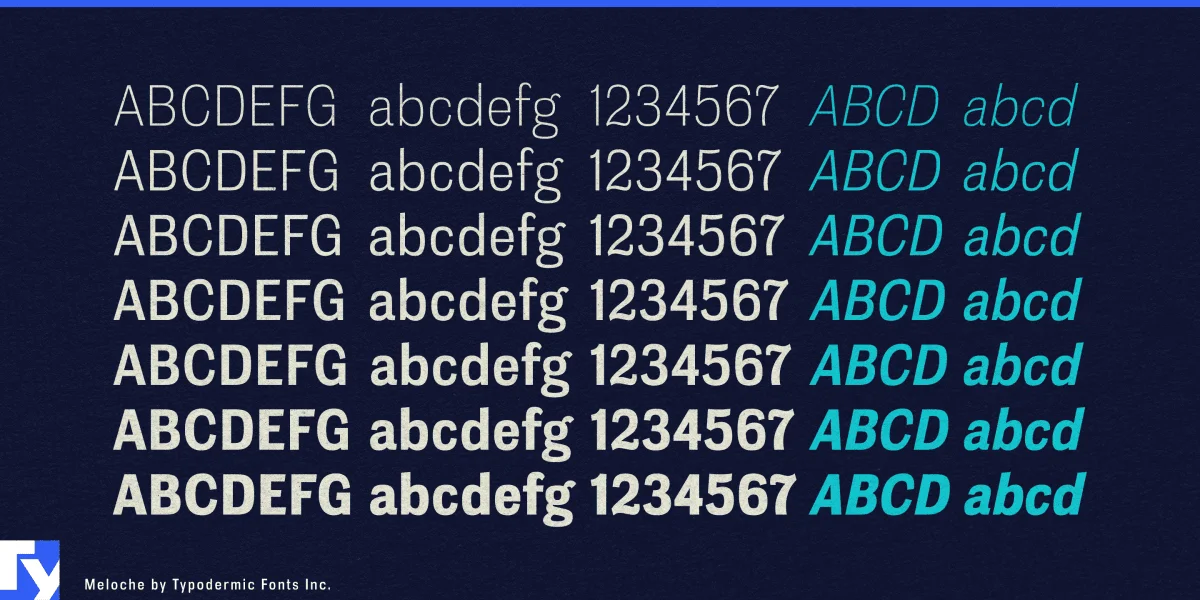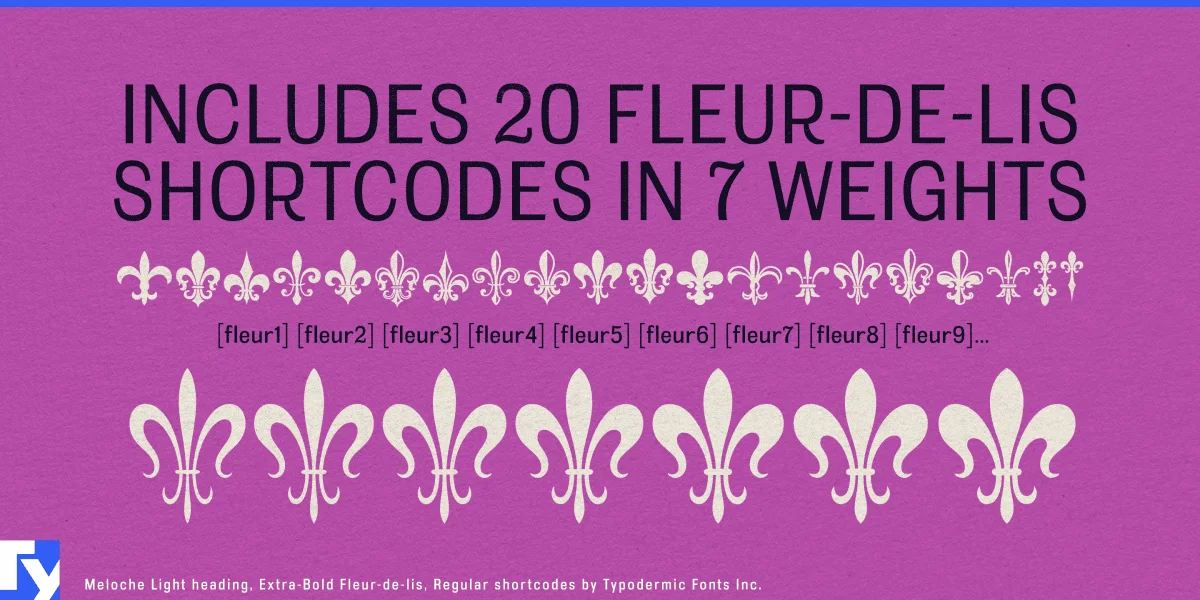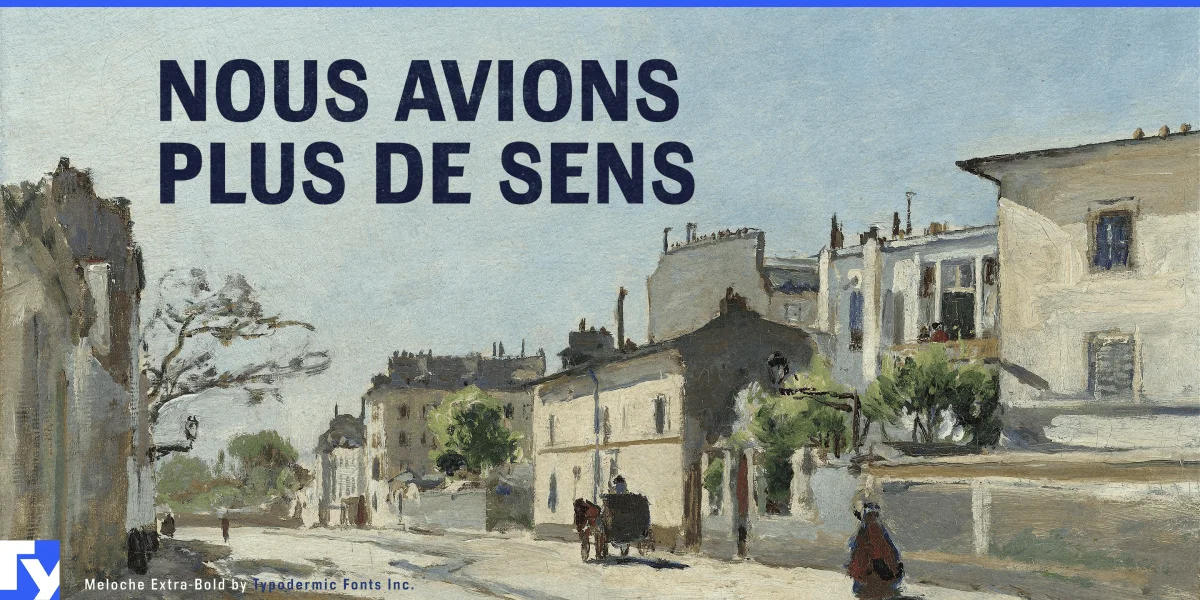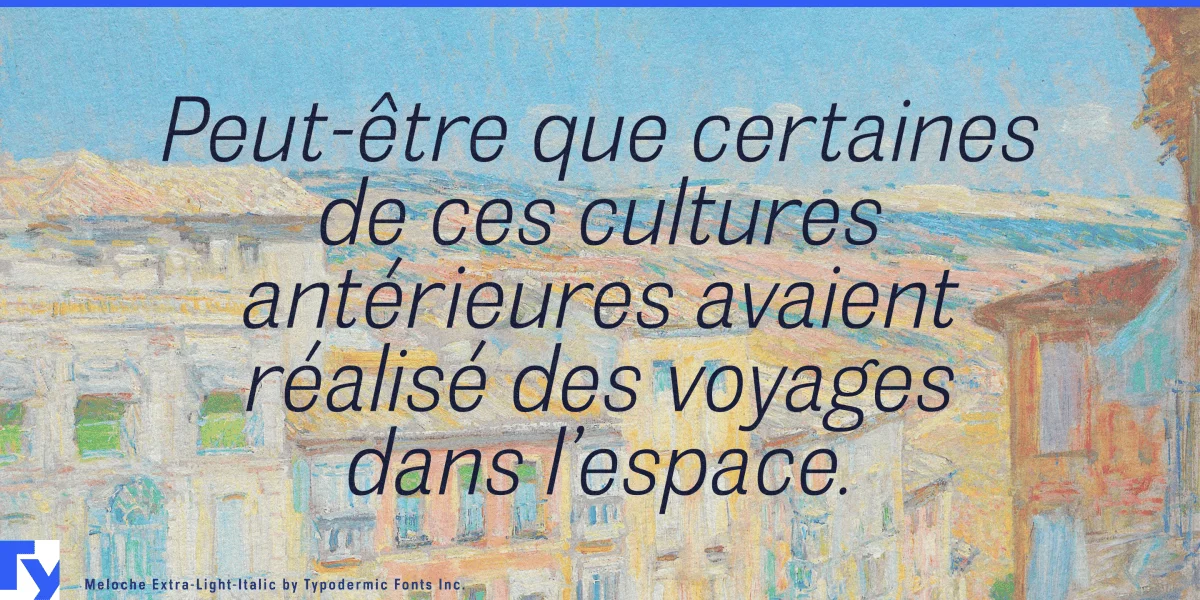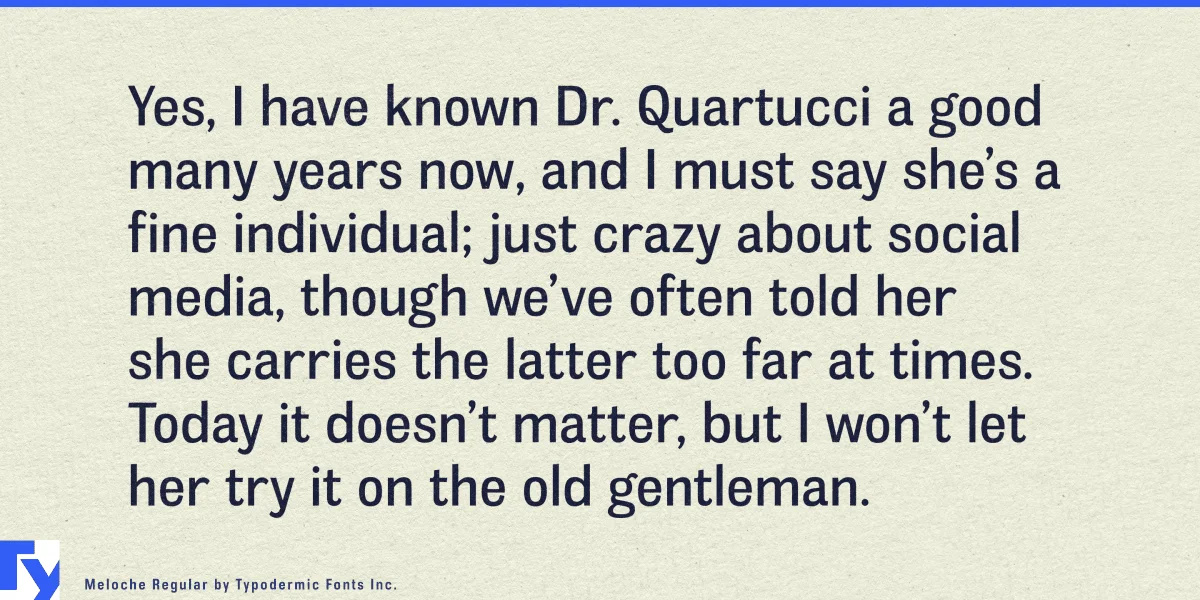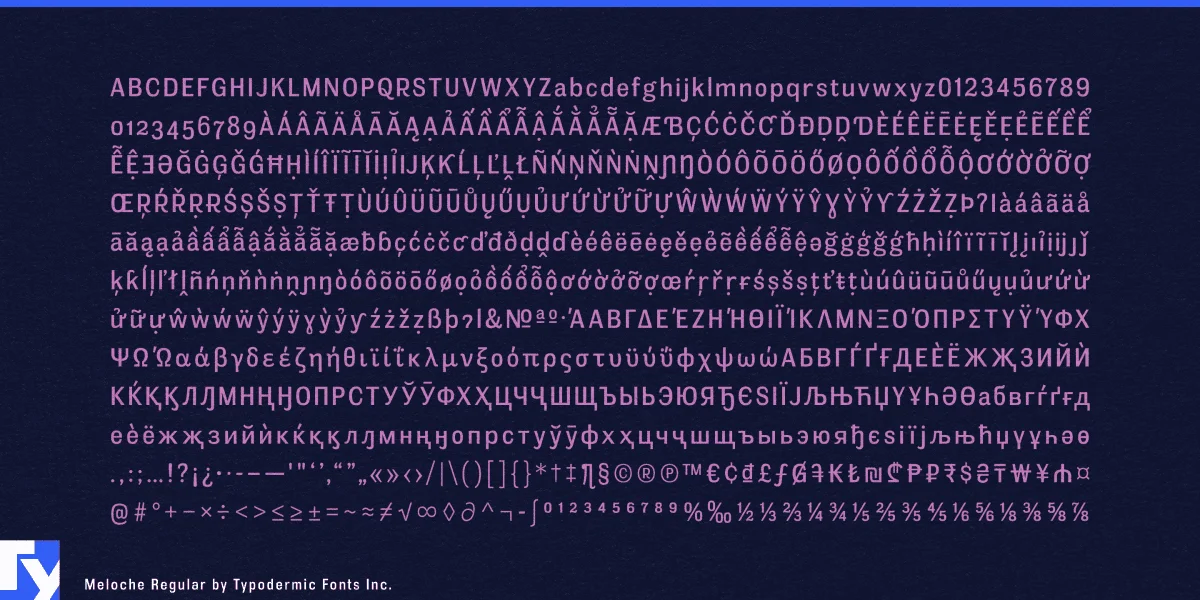
Step into the romantic streets of 19th-century Paris with Meloche, a grotesque sans-serif typeface that breathes life into the charming aesthetic of hand-painted French signage. This exquisite typeface doesn’t merely emulate history—it resurrects it, offering designers a portal to an era of unparalleled elegance and craftsmanship.
Meloche’s versatility shines through its seven meticulously crafted weights and obliques, each a testament to the typeface’s adaptability. From delicate headings to robust body text, Meloche rises to every typographic challenge. Its OpenType features unveil a treasure trove of typographic delights: numeric ordinals, fractions, and old-style numerals that dance gracefully alongside a refined, simple Q. But the pièce de résistance? Twenty weight-matched fleur-de-lis symbols, accessible via intuitive shortcodes, allowing you to crown your designs with the regal emblem of French heraldry. Imagine your message adorned with the subtle grace of bygone Parisian streets—each letter a brushstroke, each word a whisper of history. Meloche doesn’t just communicate; it transports. It’s the ideal choice for projects that demand a touch of nostalgic sophistication, from artisanal product packaging to historical exhibitions, from boutique branding to literary works evoking the romance of La Belle Époque.
This typeface’s linguistic prowess is as impressive as its aesthetic appeal. Meloche eloquently expresses itself across a vast spectrum of writing systems, from the familiar Latin scripts of Western Europe to the intricate characters of Vietnamese. It gracefully renders Greek philosophy and effortlessly adapts to most Cyrillic-based languages, making it a truly global typographic ambassador. Whether you’re crafting content in Luxembourgish or Uzbek, Meloche ensures your message retains its Parisian charm across borders and cultures.
Elevate your designs with Meloche—where every character is a brushstroke of history, and every word whispers tales of Parisian streets. This isn’t just a typeface; it’s your passport to typographic time travel, inviting you to infuse your creations with the timeless allure of 19th-century French elegance.